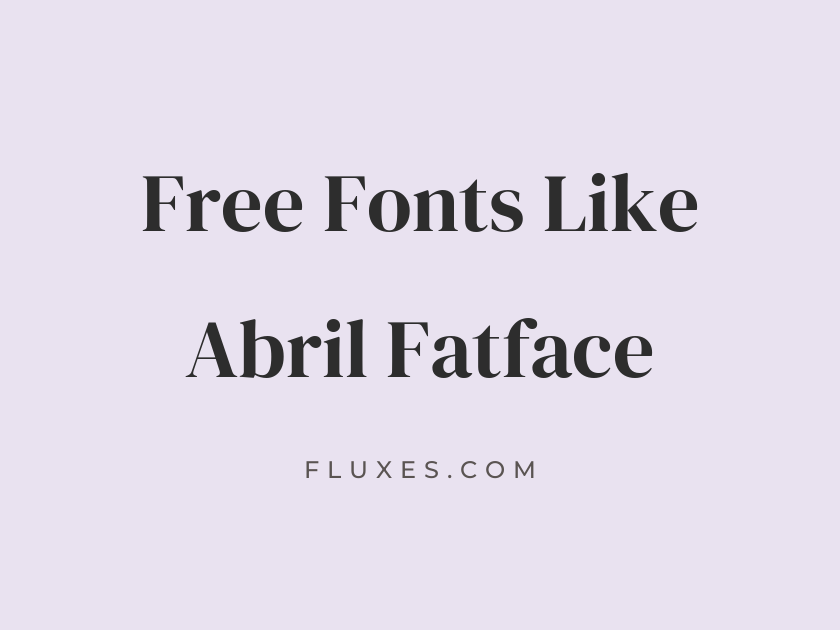
14 Best Free Fonts Similar to Abril Fatface
Abril Fatface has become the default shorthand for editorial glamour online, that thick-and-thin serif silhouette showing up on wedding invitations, fashion headlines, and coffee packaging in equal measure. Its popularity is exactly why so many designers go looking for free fonts similar to Abril Fatface, something with the same dramatic contrast and confident weight but a slightly different personality, texture, or set of proportions. The good news is that Google Fonts has built up a genuinely strong bench of high-contrast display serifs over the years, from close cousins that could stand in almost unnoticed to bolder, weirder relatives that push the fat-face idea somewhere new.
Elegant headlines with dramatic serif contrast
Of everything on this list, DM Serif Display sits closest to Abril Fatface in spirit: generous curves, sharp thins, and a display-only design meant to be set big. It reads a touch more restrained and modern, which makes it an easy substitute when Abril feels slightly too ornamental for a tech or lifestyle brand.
Refined headlines for magazines and invitations
Playfair Display is the safer, more versatile choice when you need Abril’s drama without its full theatricality. At the Black weight the contrast gets properly bold, but the family also offers lighter weights and italics, so a whole editorial layout can be built from this one typeface instead of hunting for a body-text partner.
Fashion editorial with bold Bodoni contrast
Bodoni Moda leans into the classic Didone lineage that Abril Fatface itself borrows from, but it does so as a variable font, so you can dial the weight and optical size to taste. Pushed to its heaviest setting it turns properly fat-faced and works beautifully on fashion or beauty branding.
Warm, soft display type with old-world charm
Fraunces trades Abril’s sharp Parisian polish for something warmer and slightly wonky, with a “soft” stylistic option that rounds off the serifs. It is a good pick when the brief calls for vintage warmth rather than glossy fashion-magazine shine, and it holds up surprisingly well at smaller sizes too.
Bold script-adjacent serif for celebration invites
Yeseva One has a friendlier, rounder fat-face structure that feels handmade rather than machine-precise. It suits invitations, packaging, and craft branding where Abril Fatface would read a little too polished or corporate.
Earthy display serif for cultural storytelling
Rozha One brings a slightly rustic, almost ethnic-serif quality to the fat-face format, with sturdier strokes and less extreme thin transitions than Abril. It has real character in headlines about food, culture, or heritage brands, though its heavier bottom-weighting means it can look dense if tracked too tightly.
Vidaloka
Cinematic serif titles with old Hollywood flair
Vidaloka
Vidaloka carries a cinematic, old-Hollywood mood, with tall proportions and a contrast level just a notch gentler than Abril’s. It is a natural fit for film posters, book covers, and any title treatment that wants glamour without shouting.
Graceful serif for luxury branding headlines
Prata is quieter and more architectural than Abril Fatface, with elegant, chiseled serifs that suit luxury branding, spa menus, and boutique hotel signage. Pair it with a plain sans for body copy since its display-only design is not meant for paragraphs.
Rufina
Vintage-inspired serif for elegant announcements
Rufina
Rufina offers a slightly narrower, more upright take on the high-contrast serif idea, with a vintage stationery feel that works well on formal announcements. Its bold and black weights hold enough presence for headlines while a regular weight remains legible for supporting text.
Ornamental Roman-inspired display lettering
Cinzel Decorative swaps Abril’s fashion-house polish for engraved, classical Roman flourishes. It is a niche choice best reserved for short headlines, monograms, or ceremonial contexts where its ornamentation can be appreciated rather than get muddy at small sizes.
Fenix
Understated contrast serif for editorial subheads
Fenix
Fenix keeps the contrast subtler and the letterforms calmer, making it a dependable alternative when a layout needs a serif with some fat-face DNA but nothing too flamboyant. It reads well as a subhead alongside a louder display font up top.
Heavy slab serif for punchy headlines
Alfa Slab One is not a contrast serif at all, but its sheer heaviness gives it a comparable presence when the goal is simply maximum boldness. Reach for it when a brand wants Abril’s confidence translated into a slab-serif, poster-friendly package.
Sturdy vintage slab for rustic branding
Bevan brings a stocky, slightly antique slab construction that suits rustic packaging, craft beer labels, and Western-tinged branding. It shares Abril’s boldness without any of the thin-stroke fragility, so it stays legible even when reversed out of a dark background.
Extreme contrast serif for vintage posters
Always test any high-contrast serif at your actual deployment size before finalizing a design, since thin strokes are the first thing to disappear on lower-resolution screens.
Abril Fatface earned its popularity honestly, but it was never the only option for confident, high-contrast display type. Between softer alternatives like Fraunces, closer cousins like DM Serif Display, and bolder specialty picks like Ultra, there is enough range here to give any editorial or branding project its own distinct voice while staying entirely free to download and use.